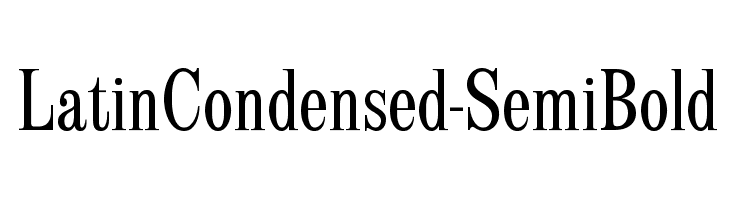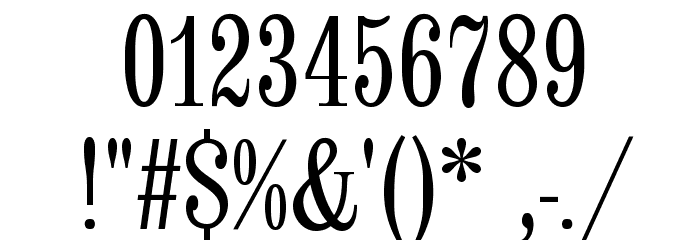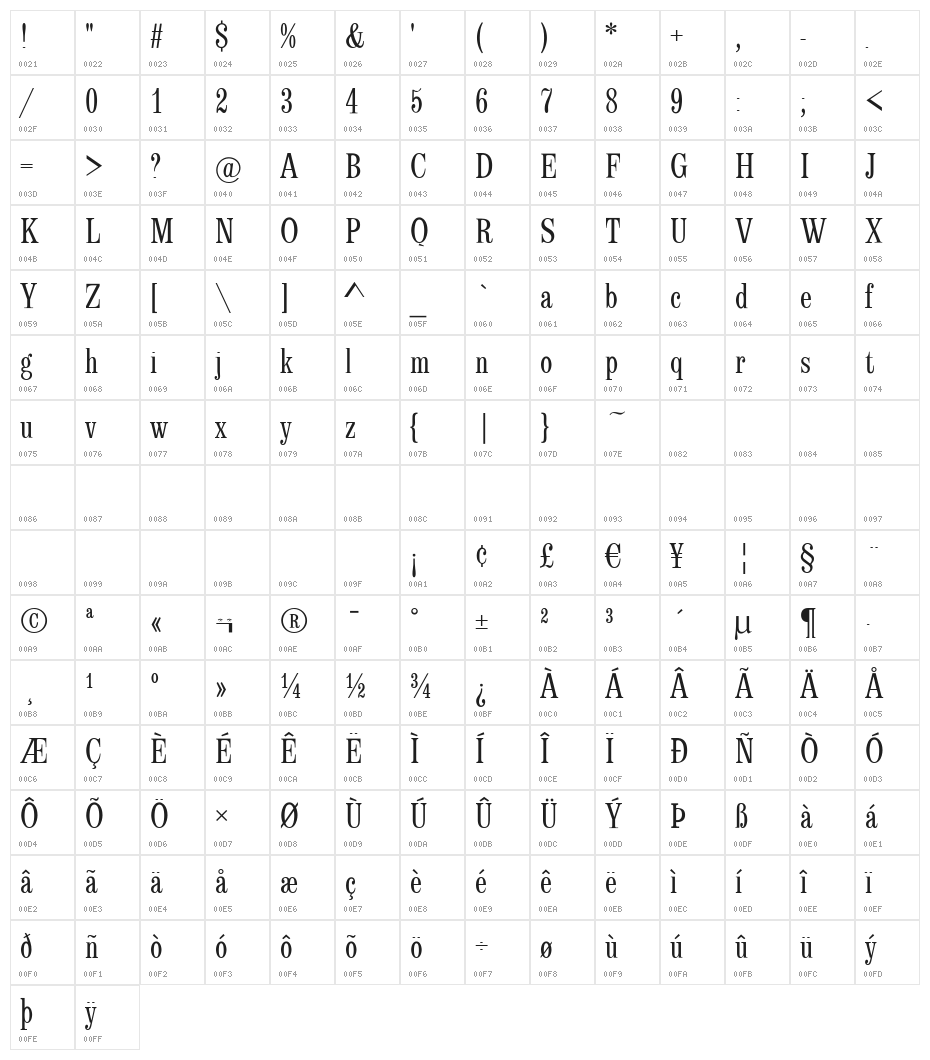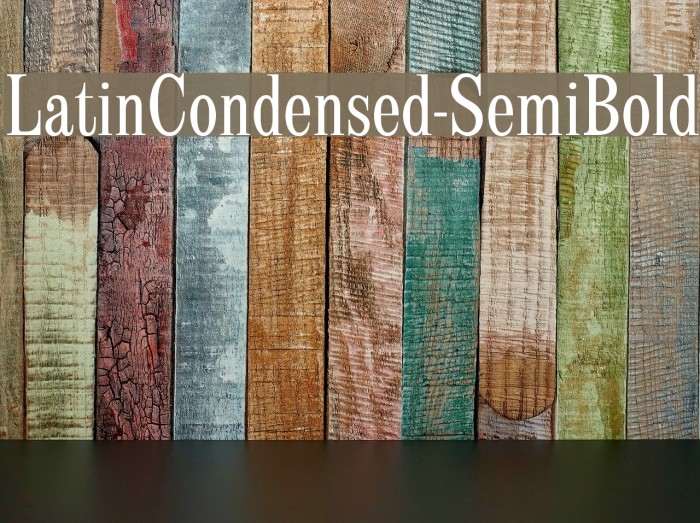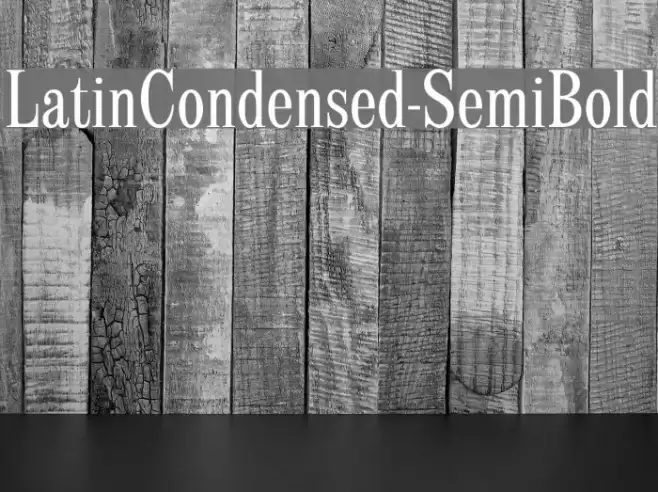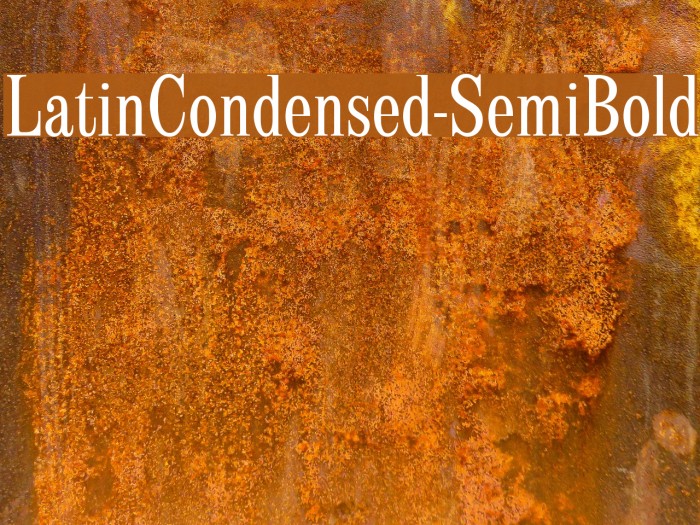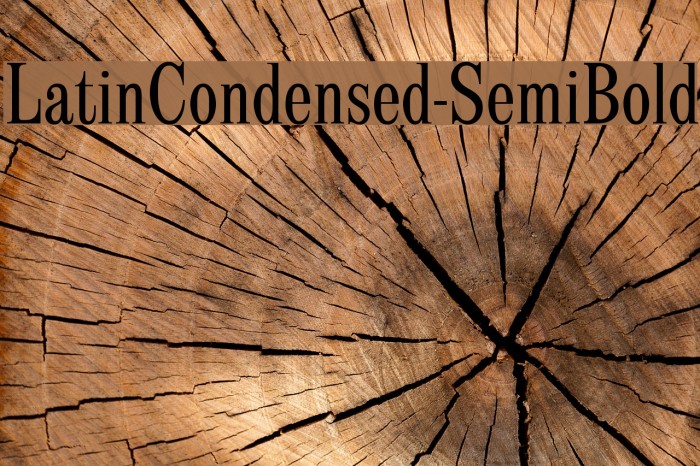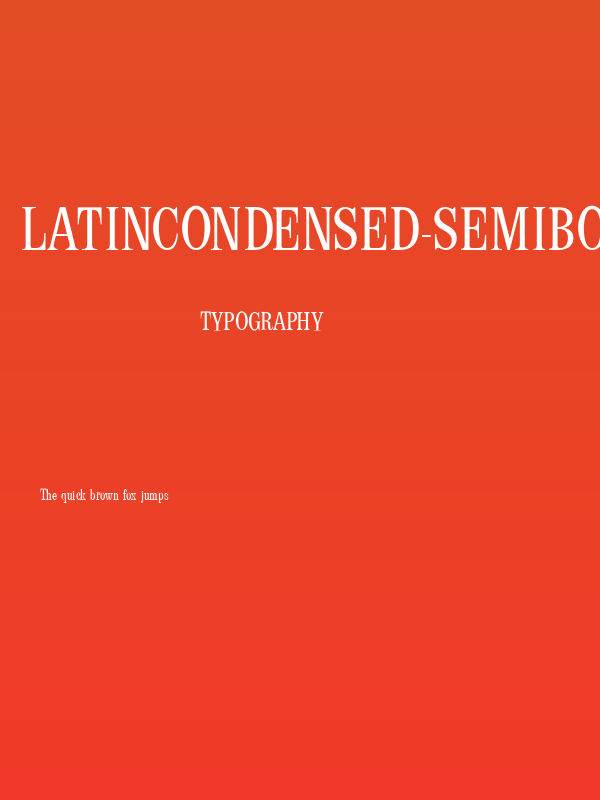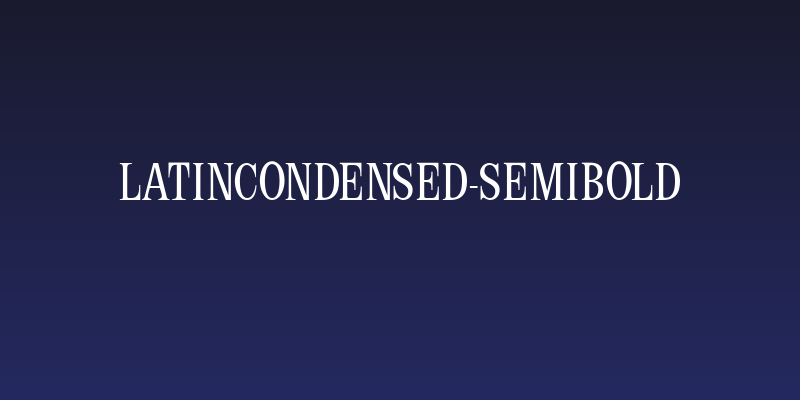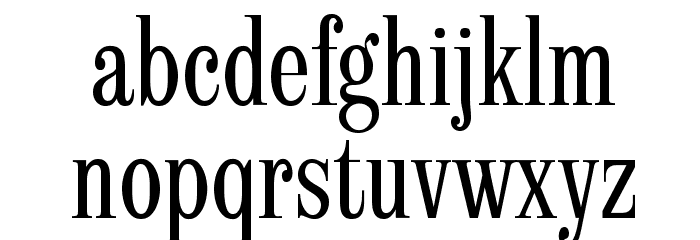
LatinCondensed-SemiBold Font
LatinCondensed-SemiBold Description
This font features a classic serif style with a condensed form, offering a semi-bold weight that provides a strong presence without overwhelming the design. The characters exhibit a traditional elegance, with sharp serifs and a slightly narrow width that enhances readability in tighter spaces. The uppercase letters are tall and commanding, while the lowercase letters maintain a consistent flow, making it versatile for various text applications. The numerals are clear and distinct, matching the overall aesthetic of the font. Special characters are well-defined, ensuring compatibility with a wide range of uses.
| Proposed Projects | Ideal for book covers, editorial layouts, formal invitations, and branding projects that require a touch of sophistication. |